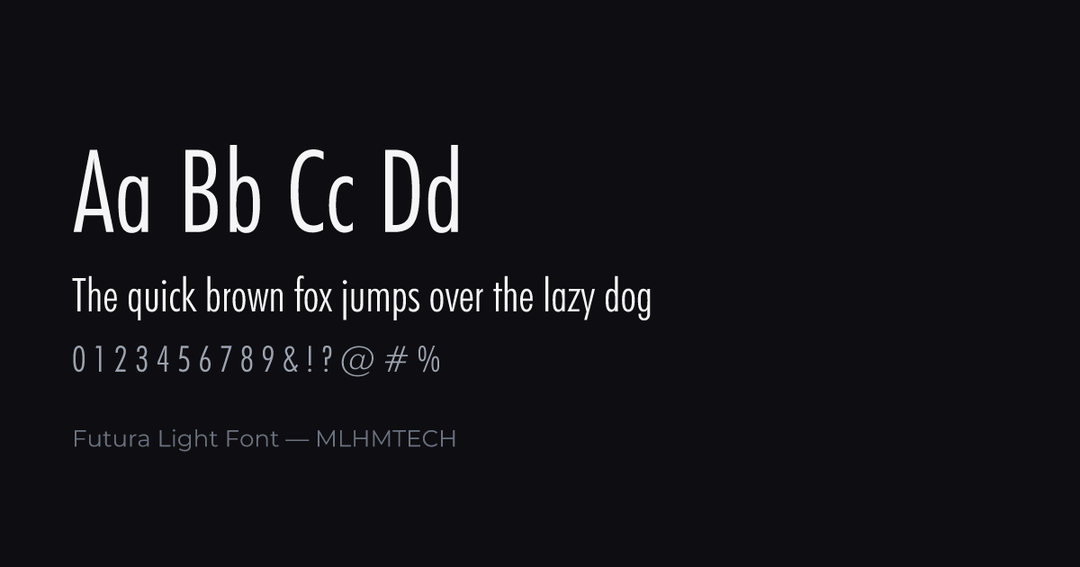
Futura Light Font
Futura Light is a geometric sans-serif font with a clean, modern look. Ideal for headlines, logos, and elegant branding.
Futura Light is a classic geometric sans-serif typeface designed by Paul Renner in 1927. Its clean, balanced letterforms exude modernity and sophistication, making it a favorite among designers for a wide range of projects.
This font is perfect for creating minimalist logos, elegant headlines, and refined body text. Its light weight adds a touch of airiness and sophistication, suitable for fashion, lifestyle, and tech brands.